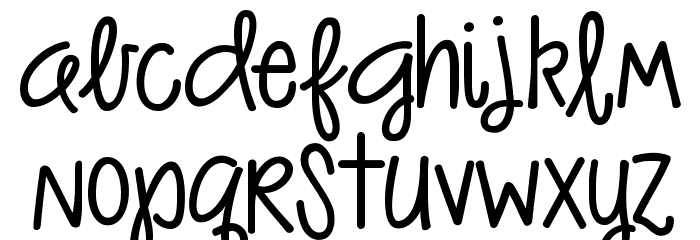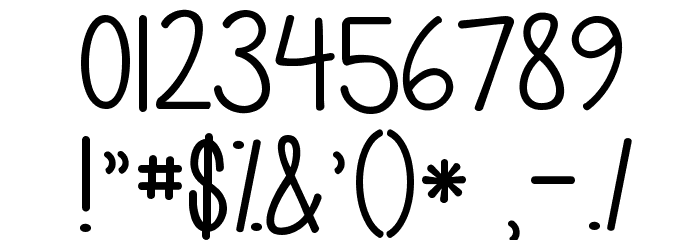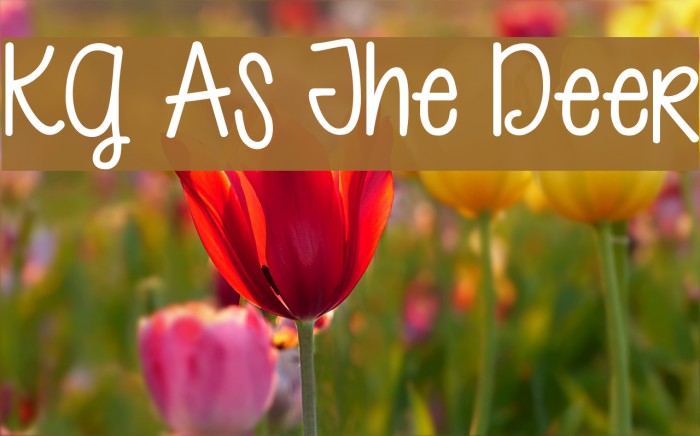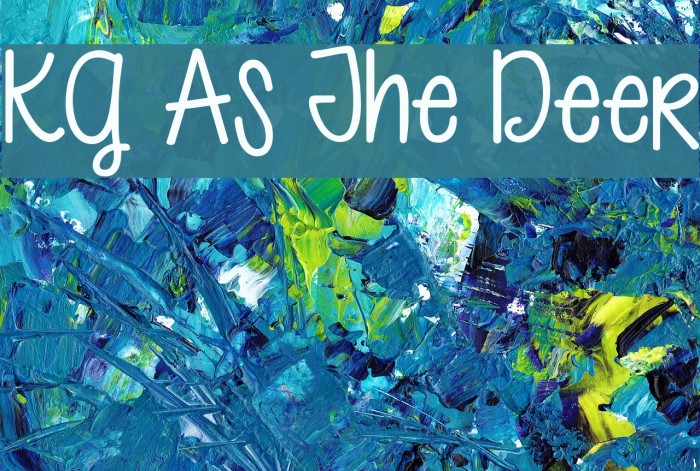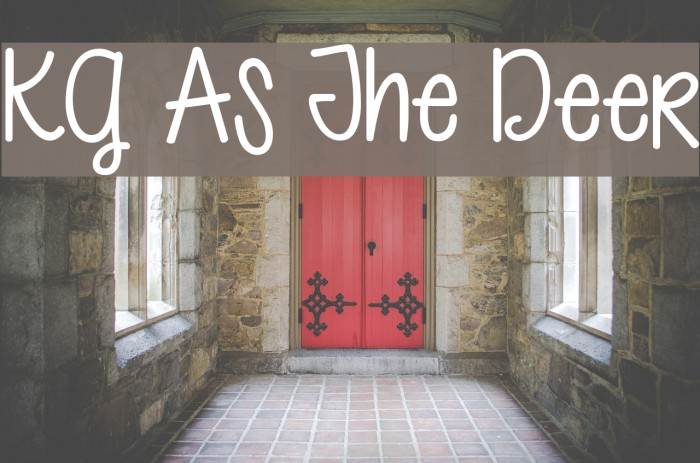
KG As The Deer Font
This playful and whimsical font features a handwritten style with a casual and friendly appearance. The letters are slightly slanted, adding a dynamic flow to the text. The strokes are consistent in width, providing a uniform look across all characters. The uppercase letters are bold and prominent, while the lowercase letters maintain a smooth and flowing form. Numbers and special characters are designed to match the overall style, ensuring a cohesive look in any text. This font's unique charm makes it suitable for creative and informal projects.
A playful handwritten font with a casual and friendly style.
- Proposed Projects: Ideal for greeting cards, children's books, playful branding, and social media graphics.
- Overall Style: Casual, Playful
- Use Case: Headlines, Informal text, Creative projects